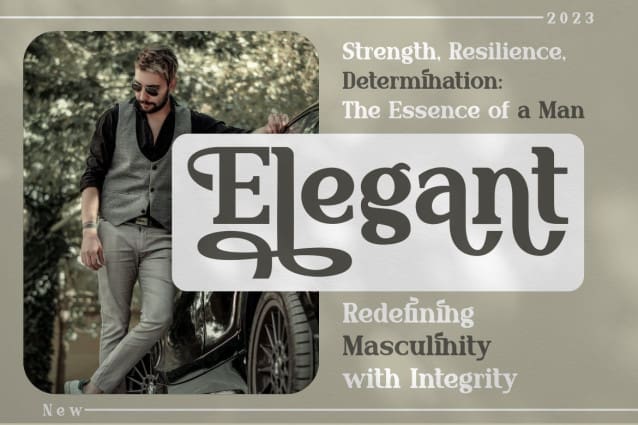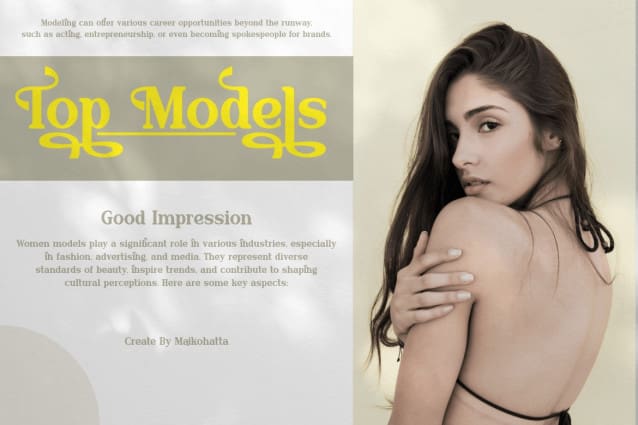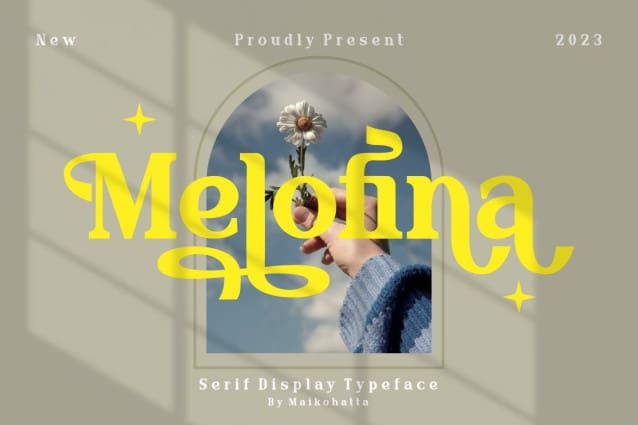
Melofina Font
Melofina Font, This font is a typographic masterpiece that harmonizes elegance and sharpness. Each letter of this font is meticulously designed, with an emphasis on balanced proportions and impeccable alignment. This font is perfect for various contexts, such as print design, promotional materials, or magazine layouts